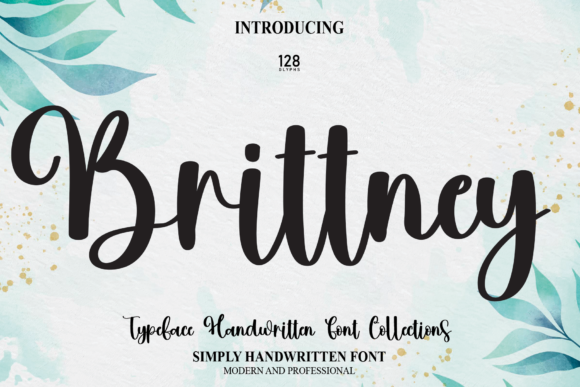
The Brittney Font: A Lovely and Slim Handwritten Delight
As soon as I saw it, I knew I had found what I was looking for. Brittney is a lovely and slim handwritten font that is perfect for creating eye-catching logos, branding, and quotes. It’s versatile, elegant, and has a certain je ne sais quoi that sets it apart from other fonts.
- ✨ **Elegant and sophisticated**: Brittney has a refined, high-end feel that’s perfect for luxury brands or creative projects.
- ✅ **Versatile**: This font works well in a variety of contexts, from digital media to print materials.
- 💫 **Easy to read**: Despite its slim design, Brittney is surprisingly easy to read, even at smaller sizes.
- 🎨 **Great for creative projects**: Whether you’re working on a logo, brochure, or social media graphics, Brittney is a great choice.
While Brittney is an amazing font, it’s not perfect. Here are a few things to keep in mind:
- ⚠️ **Limited use in body text**: While Brittney is easy to read, it’s still a handwritten font, and may not be the best choice for longer blocks of text.
- 🤔 **Some letters may require adjustment**: Depending on the word or phrase, some letters may need to be adjusted to ensure proper spacing and alignment.
Brittney was designed with the goal of creating a font that was both elegant and approachable. The designer, who wishes to remain anonymous, was inspired by classic handwritten fonts, but wanted to create something fresh and modern. The result is a font that’s perfect for creative projects, branding, and more.